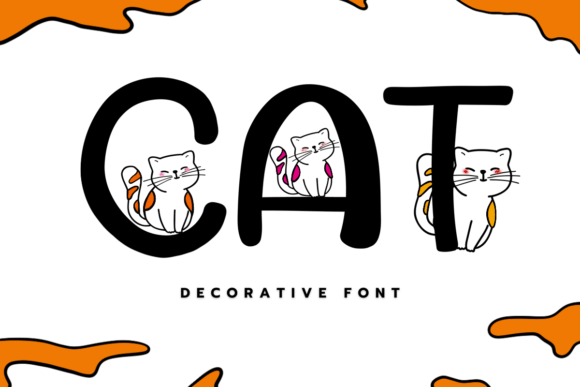
The Purrfect Font: A Deep Dive into Cat Font
I’ll never forget the time I was working on a project for a children’s book, and my client asked me to create a custom illustration for the title page. I wanted to add a playful touch, but I was struggling to find the right font to match the whimsical theme. That’s when I stumbled upon Cat Font, a delightful font where each letter is accompanied by a charming cat standing next to it. It was love at first sight! 💕
Imagine a font that brings a smile to your face, making your designs look adorable and fun. That’s what Cat Font offers, and in this article, we’ll explore its features, how to use it, and some similar fonts you might enjoy.
An Honest Review of Cat Font
What I Love About Cat Font ✨
- Unique and playful design: Each letter is paired with a cute cat, making it perfect for children’s projects, greeting cards, or any design that needs a touch of whimsy.
- High-quality illustrations: The cats are intricately designed, with attention to detail that makes them look like they were drawn by a professional.
- Easy to read: Despite the added illustrations, the font remains clear and readable, even at smaller sizes.
While Cat Font is amazing, it’s not without its quirks. For instance:
- Limited use cases: While the font is perfect for playful designs, it might not be suitable for more formal or professional projects.
- Occasional kerning issues: When using the font at very small sizes or in combination with other fonts, you might notice some kerning issues.
To overcome these limitations, it’s essential to experiment with the font and adjust it according to your design needs.
The Backstory of Cat Font
Cat Font was designed by a team of creatives who wanted to create a font that would bring a smile to people’s faces. The designers were inspired by their own pets and the joy that cats bring to their lives. They wanted to create a font that would capture that sense of playfulness and whimsy.
| Font Name | Cat Font |
| Author | Bee piyanuch |